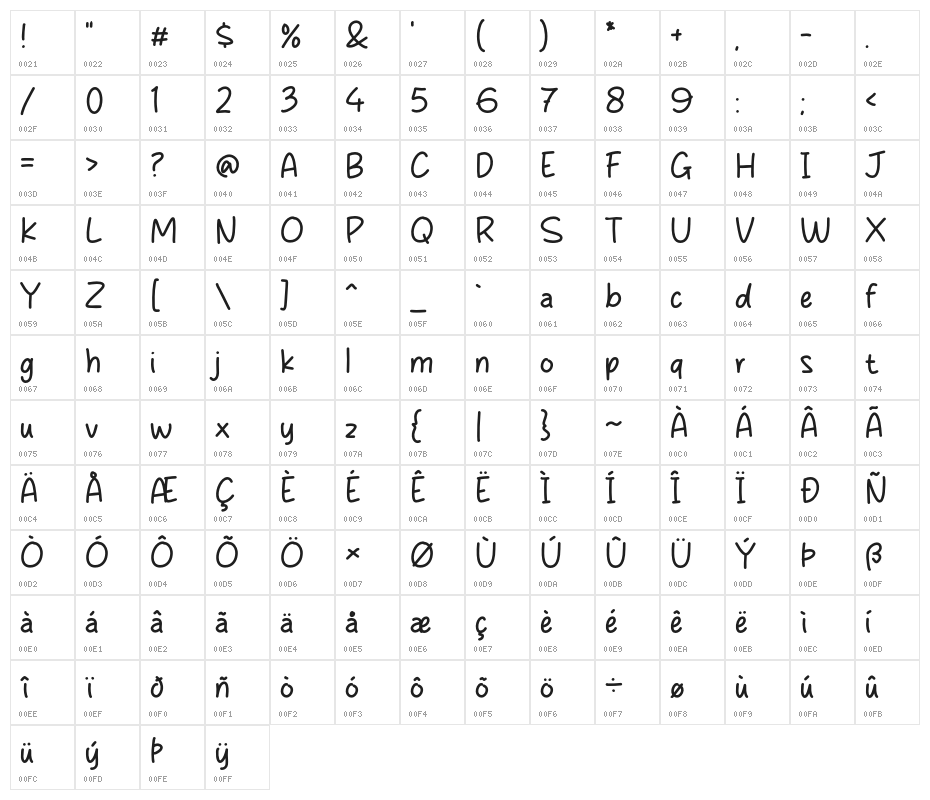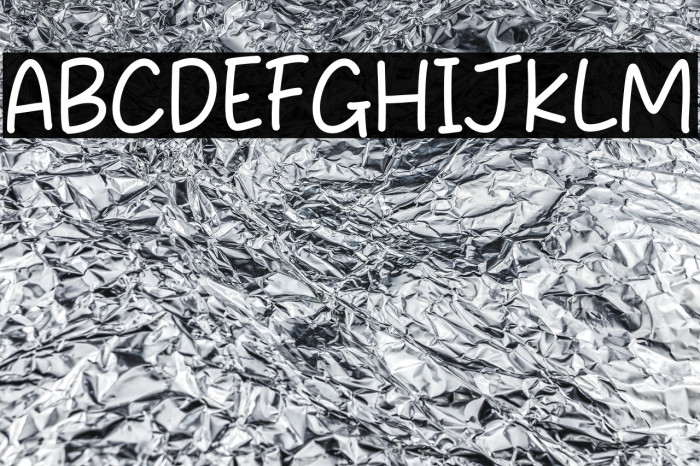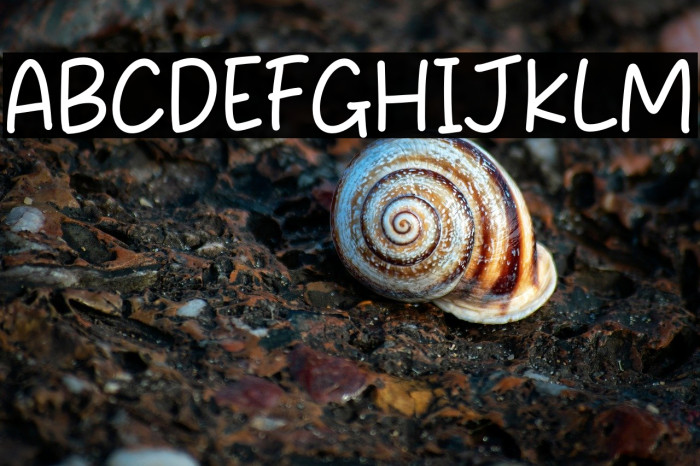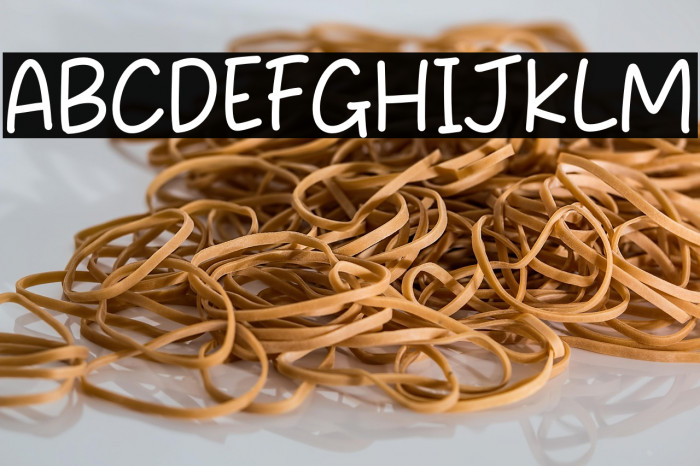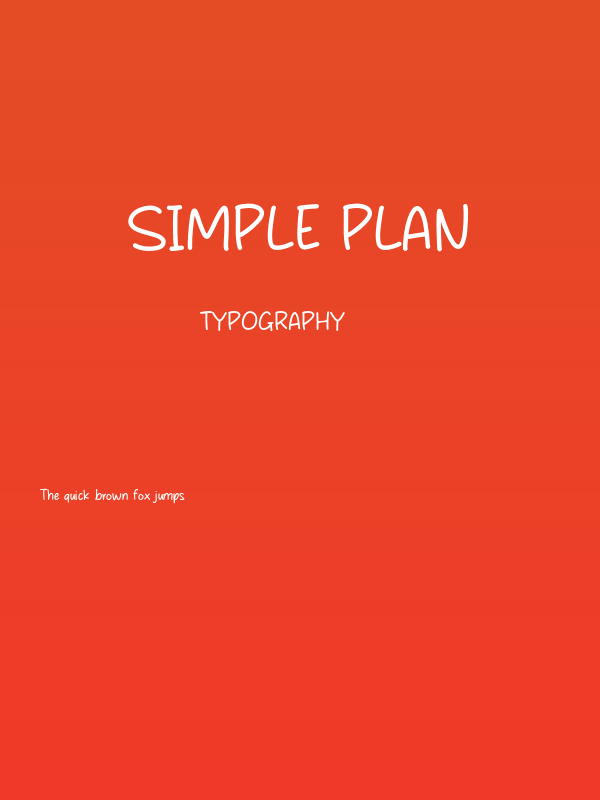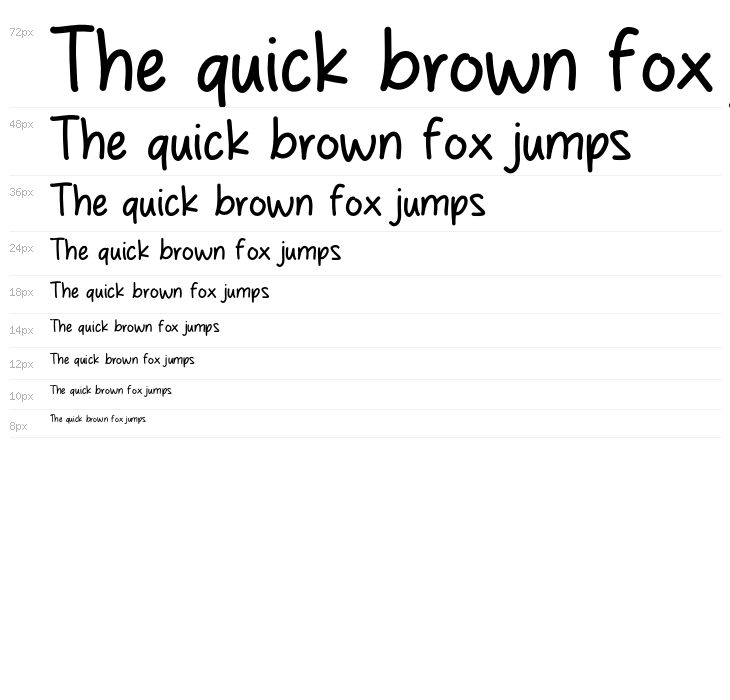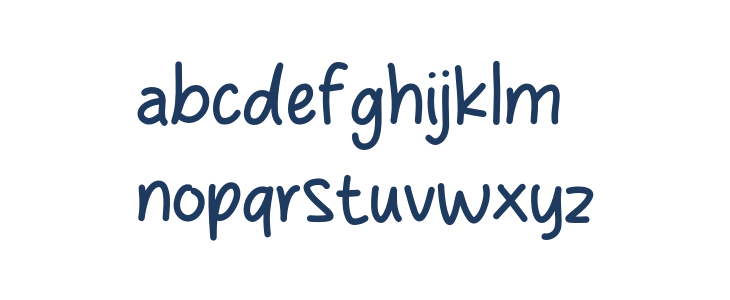
Simple Plan Font
Simple Plan Description
This font exudes a playful and casual handwritten style, characterized by its rounded and slightly irregular letterforms. The strokes are smooth and consistent, giving it a friendly and approachable appearance. The uppercase and lowercase letters maintain a uniform height, while the numbers and special characters are designed to complement the overall aesthetic. This font's informal nature makes it ideal for projects that require a personal touch or a relaxed vibe.
| Overall Style | Casual |
| Use Case | Headlines, Informal text, Personal projects |
| Proposed Projects | Ideal for greeting cards, children's books, personal blogs, and informal branding. |